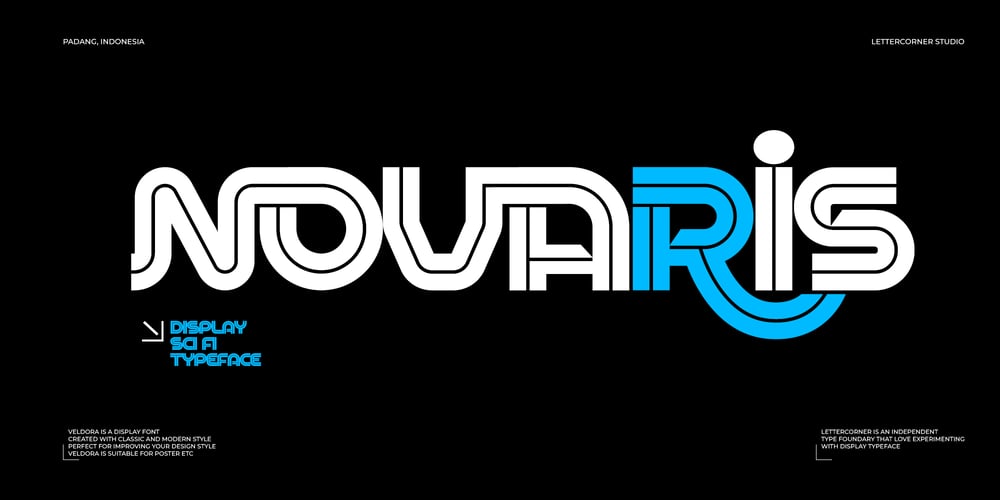
Novaris
Novaris font
Novaris Font Family was designed by Muhammad Afif Ersya and published by Mevstory Studio. Novaris contains 2 styles and family package options. Novaris is an expanded display sans serif typeface, which is an unusual, eye-catching style in the type design field. All letters have the same weight optically and create a consistent feel across varied uses. Alternate characters are available for those of you who want to create a unique type, making your identity stand out more.